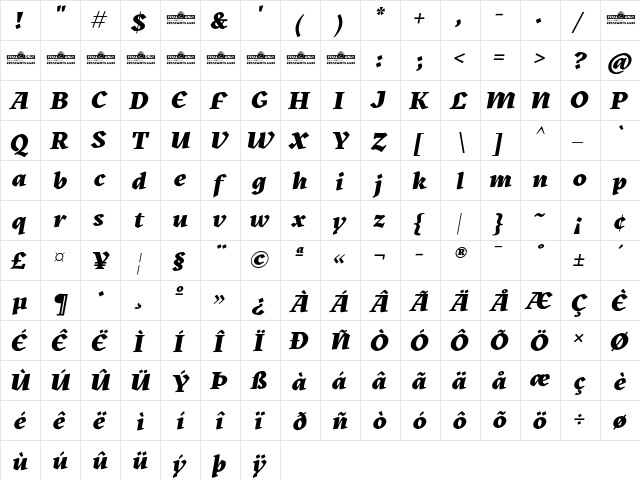
Kitsch Trial Extrabold Italic
Design Context for Kitsch Trial Typeface
Kitsch Trial offers clean, dependable letterforms without strong stylistic allegiance, making it a practical choice for designers who need flexibility. The dynamic lean of this cut emphasises speed and emphasis in any layout. The heavy weight commands attention and anchors typographic hierarchies.
Pro Tip: Use Kitsch Trial for emphasis, pull quotes, and subheadings where its slanted energy can add rhythm to the layout.